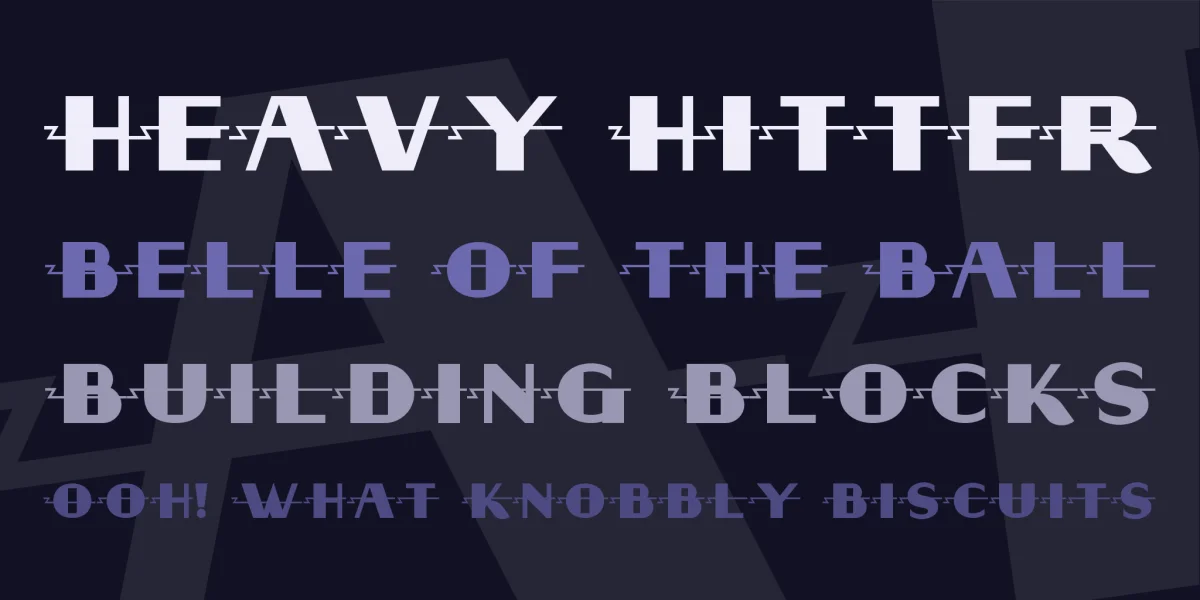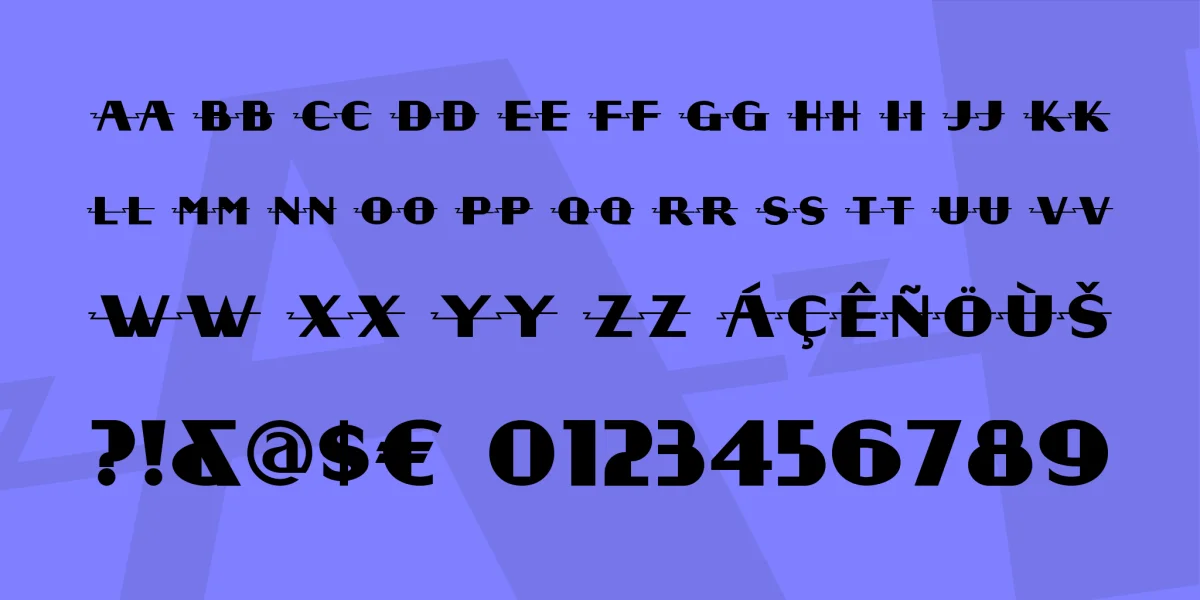
This Deco delight is based on logotype lettering for Crosley Radios from the 1930s. By aLtErNaTiNg upper and lowercase letters (brackets and braces, too), you can maintain the flow of the lightning bolts through the letters. Additionally, inline hyphens can be found at the ASCII circumflex and ASCII tilde positions.